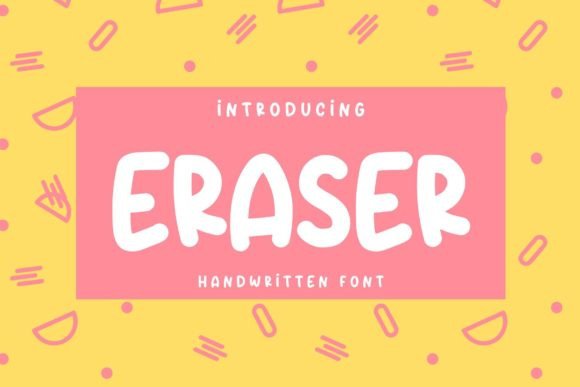
Dive into the world of Eraser Font, a captivating handwritten display font that exudes playfulness and authenticity. Crafted by the talented Brown Cupple Fonts, Eraser Font is the ultimate choice for expressing your creativity in a myriad of projects. Its charming and whimsical nature makes it the perfect companion for creating heartfelt blog posts, unforgettable logos, distinctive branding, eye-catching ads, heartwarming invitations, and much more.
With Eraser Font, let your words dance and come alive. Its carefully crafted characters possess an irresistible charm that will captivate your audience. Elevate your social media posts to new heights with captivating quotes and messages that are sure to leave a lasting impression. Unleash your inner artist and design enchanting greeting cards that convey your heartfelt emotions in a unique and memorable way.
Imagine the joy of crafting personalized planners and photo albums, adorned with Eraser Font's playful touch. Preserve your cherished memories with a unique aesthetic that reflects your personality and style. Transform your home décor into a haven of creativity with Eraser Font's decorative flair. Create wall art, posters, and signage that speak to your individuality and add a touch of whimsy to your living space.
Eraser Font is the perfect tool to unleash your imagination and create designs that resonate with your audience. Its versatility and adaptability make it a must-have for designers and creatives of all levels. Its playful nature adds a touch of charm and warmth to any project, while its authenticity lends a sense of credibility and genuineness.
Step into the world of Eraser Font and discover a world of creative possibilities. Let your imagination soar as you design projects that are not only visually appealing but also deeply meaningful. Embrace the power of Eraser Font to communicate your message with style and finesse. Its user-friendly design and effortless charm make it an essential tool for anyone seeking to make a lasting impact with their creative endeavors.